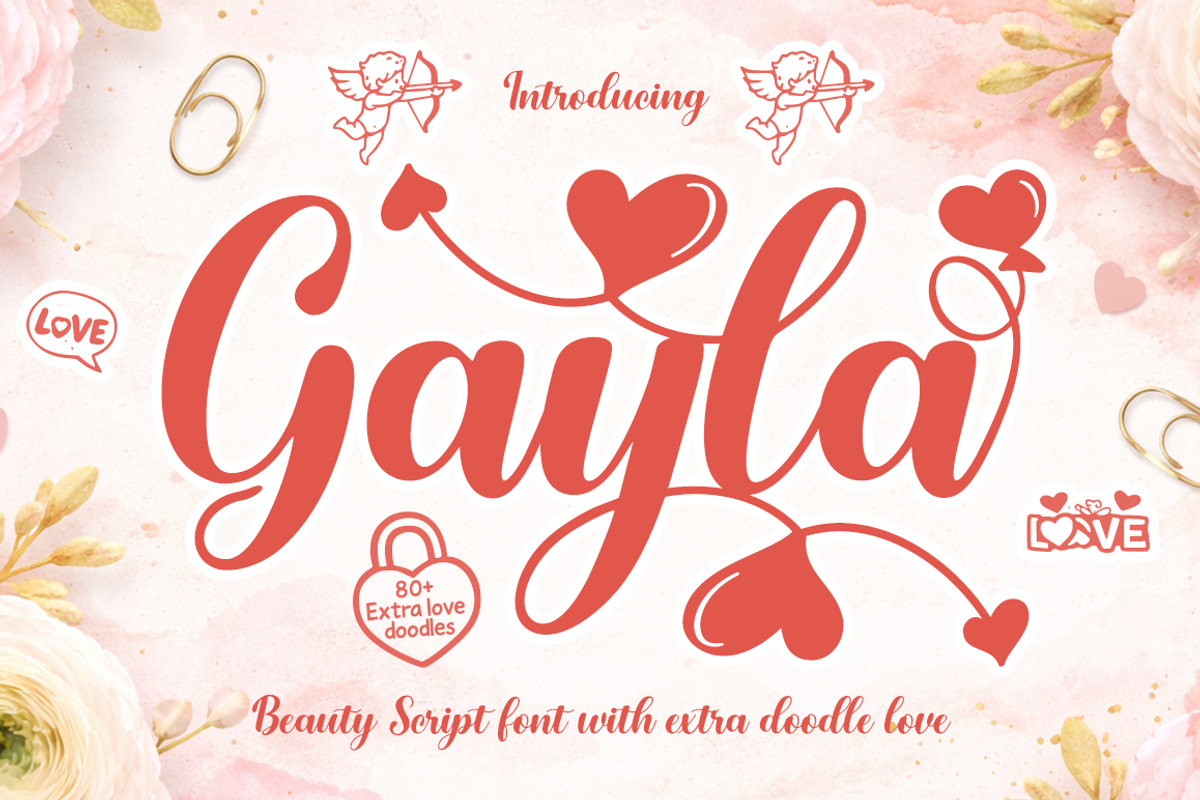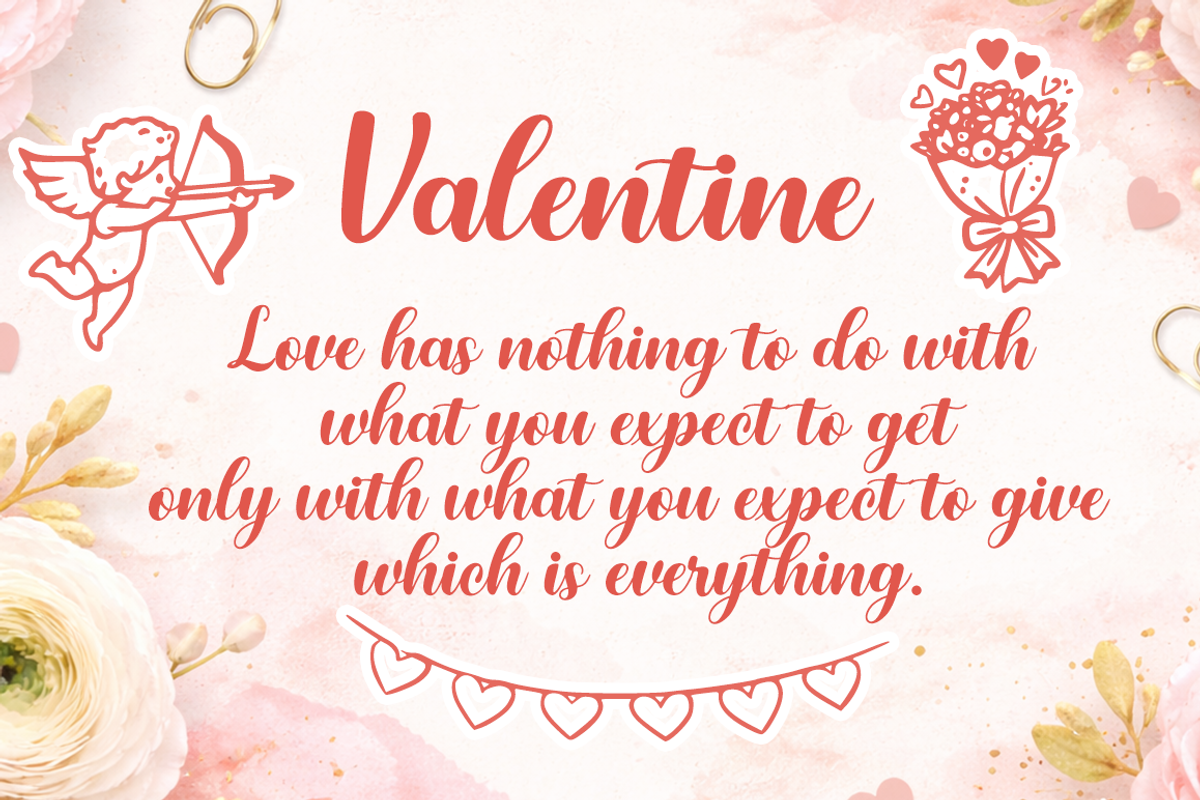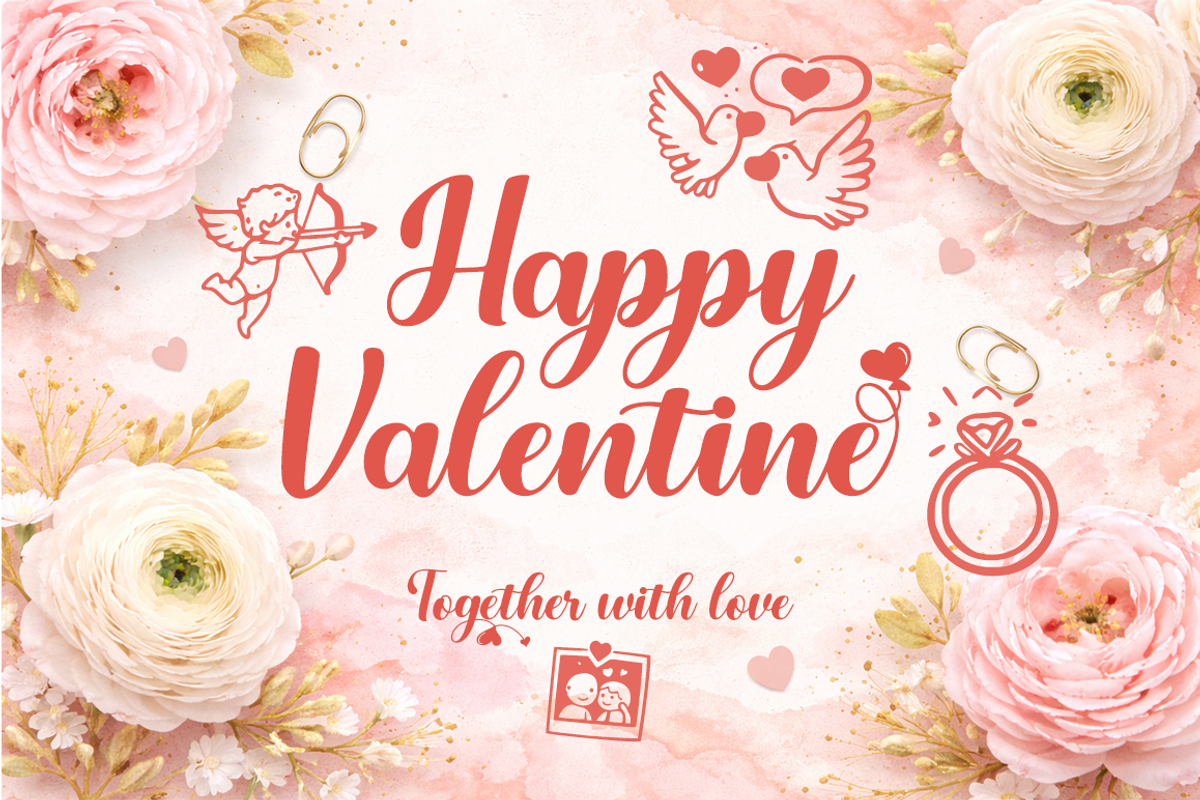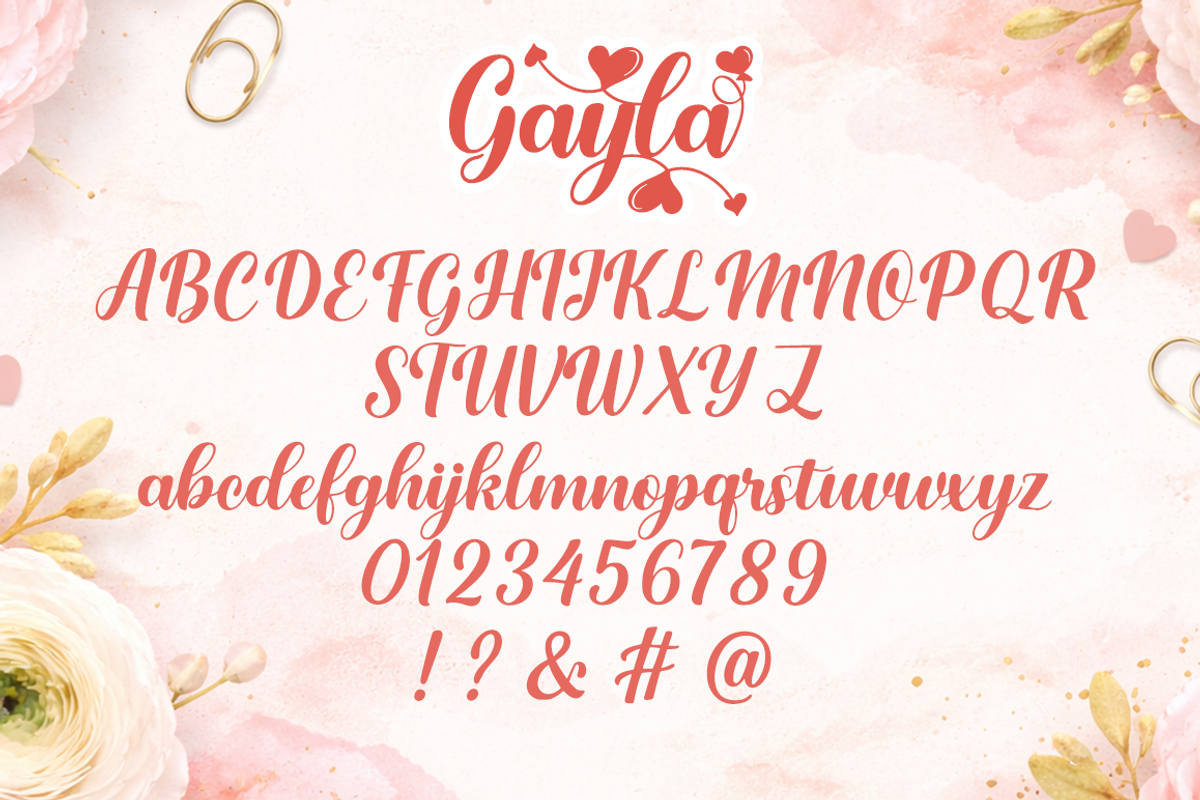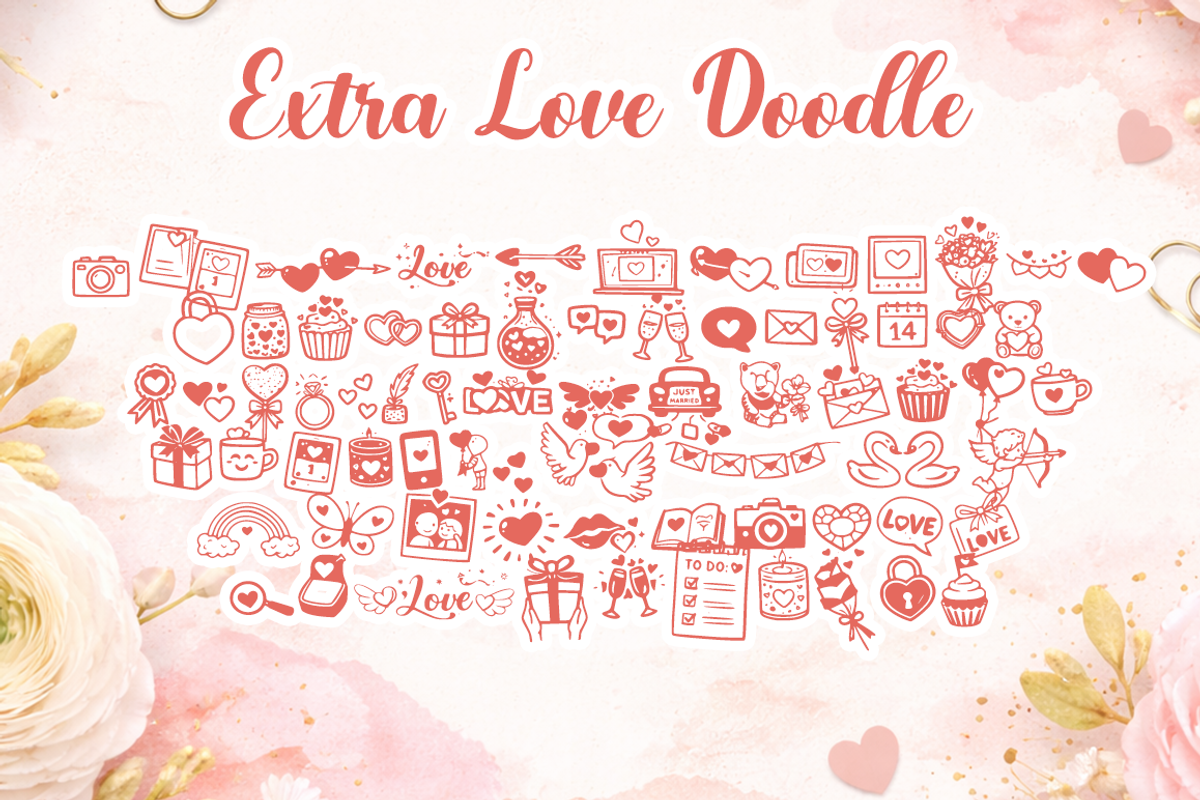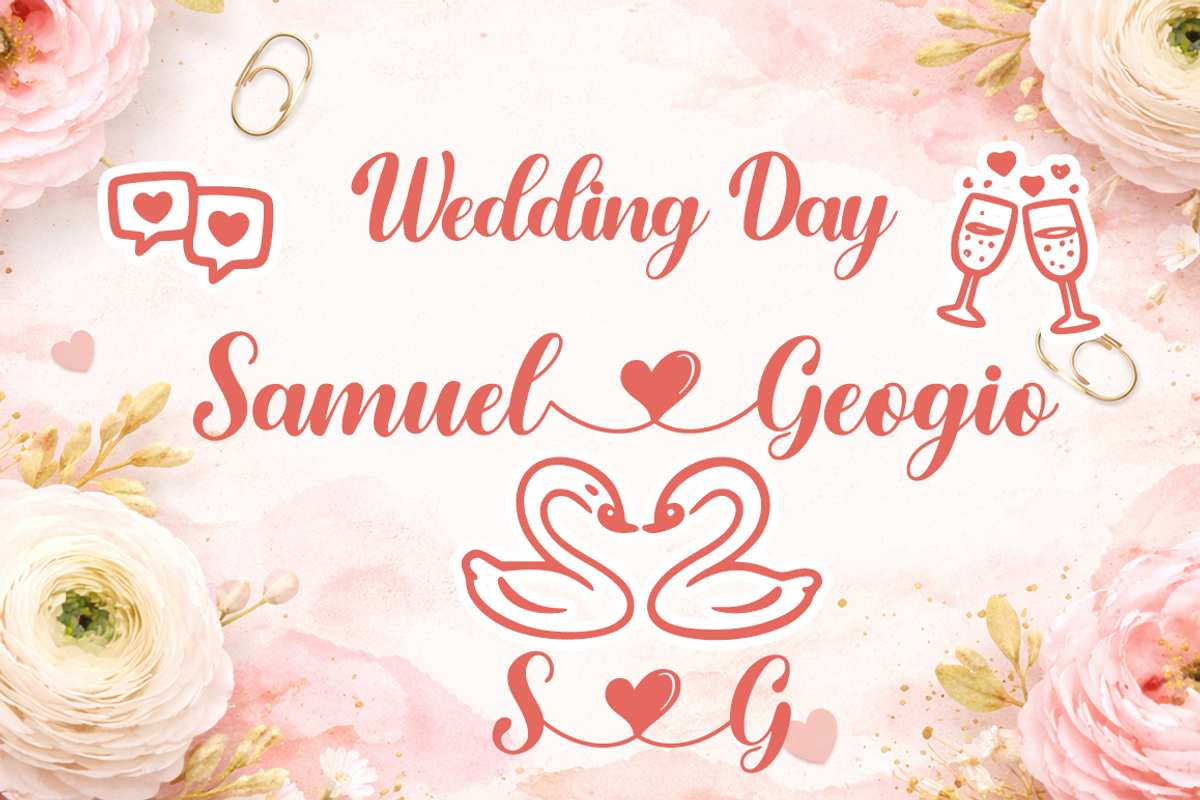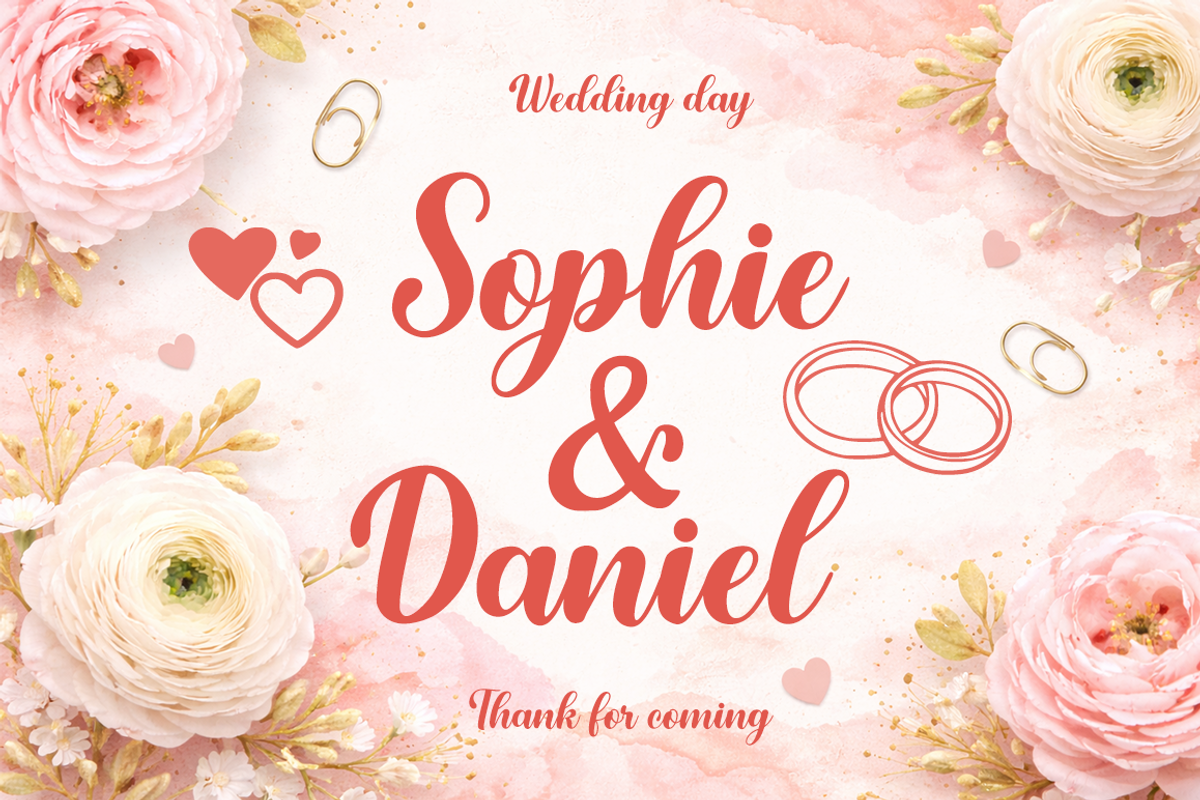
Gayla Romantic Script Font with Love
Gayla is a romantic beauty script font designed with smooth curves, elegant strokes, and playful heart details. This font comes with a rich collection of love-themed doodles that add charm and personality to any design.
With flowing letterforms and carefully crafted swashes, Gayla is perfect for wedding invitations, Valentine projects, greeting cards, branding, logos, social media graphics, quotes, and romantic typography. The font includes multiple heart alternates that allow creative customization and expressive lettering.
The bonus love doodles complement the script style beautifully, making it easy to create cohesive designs without additional graphics. Each element is clean, well-balanced, and optimized for both digital and print use.
Features: Elegant beauty script font Heart alternates and decorative swashes 80+ bonus love doodles Multilingual support Works on Adobe Illustrator, Photoshop, Canva, and more Ideal for weddings, love themes, branding, and social media Gayla brings a soft, romantic feel with flexible styling options, making it a valuable addition to any creative font collection.